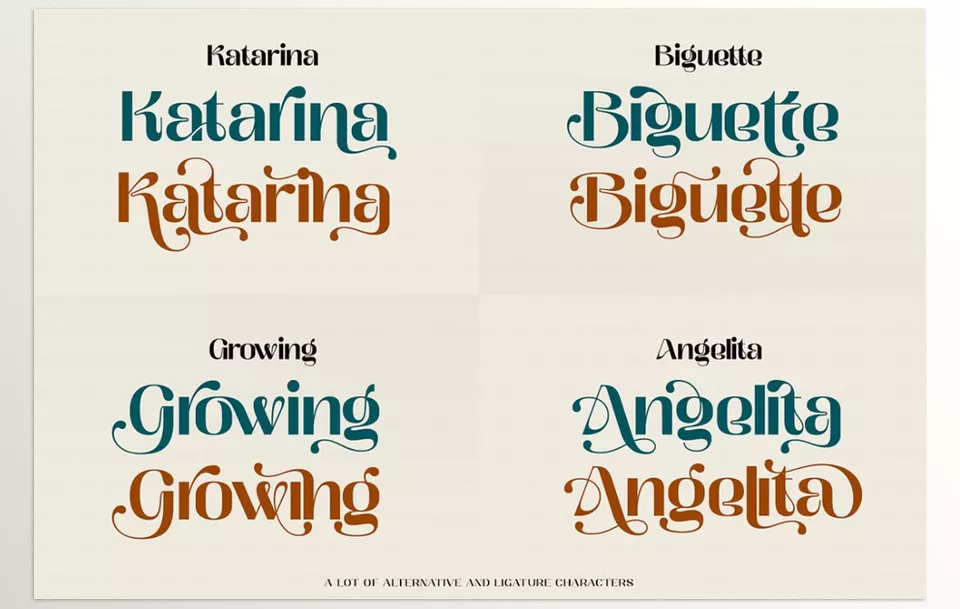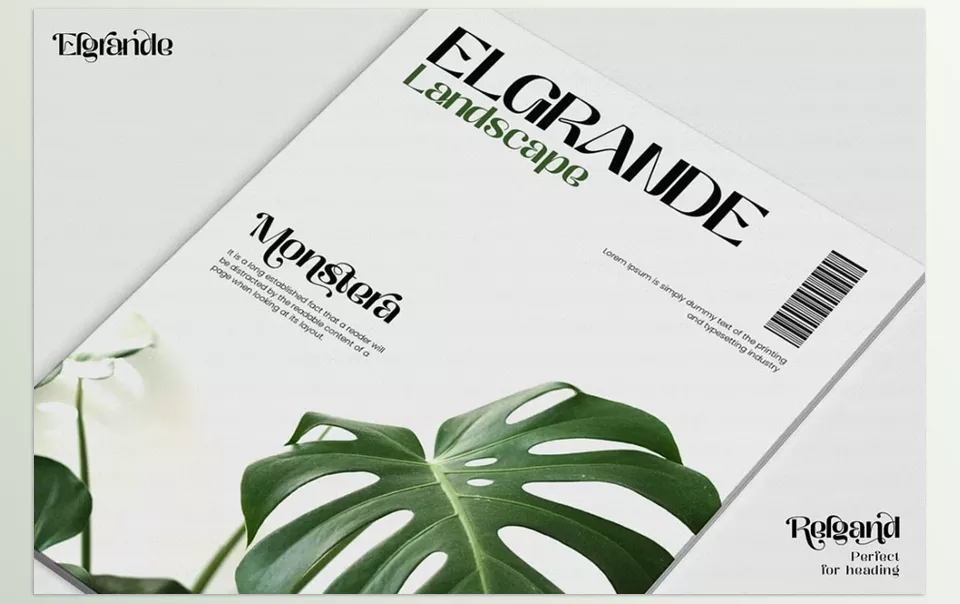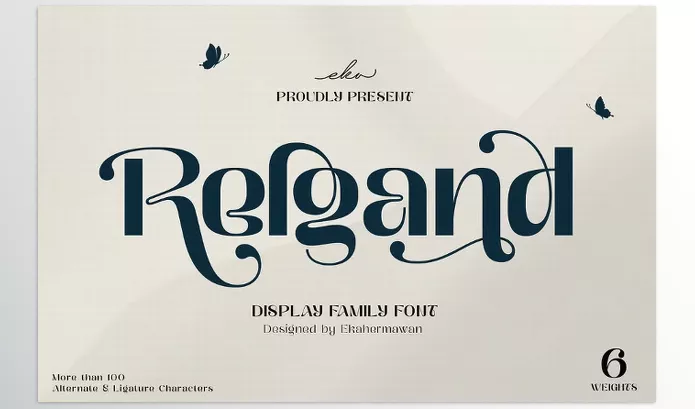
Font – Relgand Display Family Font by Ekahermawan – Download
Ekahermawan crafted Relgand Display Family Font, a modern sans serif font designed for upscale display use. This typeface blends geometry and gentle strokes, adding elegance to branding, posters, editorials, and even digital interfaces. With a complete assortment of weights and thoughtful alternates, Relgand strives to provide flexibility—from bold statements to nuanced layouts.
Ekahermawan – Relgand Display Family Font Features
• Optimized for display: preserves readability and dominance when displayed in large formats.
• Extensive language support: supports various character sets of different countries.
• Scalable for digital and print: regardless of the size, it maintains clarity and impact.
• Ideal for branding: enables coherent identity development for logos and packages.
• Refined geometry: proportions and aesthetical details are consistent yet subtle.
• Designed crafted: developed thoughtfully by Ekahermawan for creative expression.
Preview Relgand Display Family
Image 1: Make Every Letter Count – Craft Bold, Unforgettable Designs with Relgand.
Relgand Display Family Font - Make Every Letter Count – Craft Bold, Unforgettable Designs with Relgand.
Image 2: Elevate Your Typography Game
Relgand Display Family Font - Elevate Your Typography Game